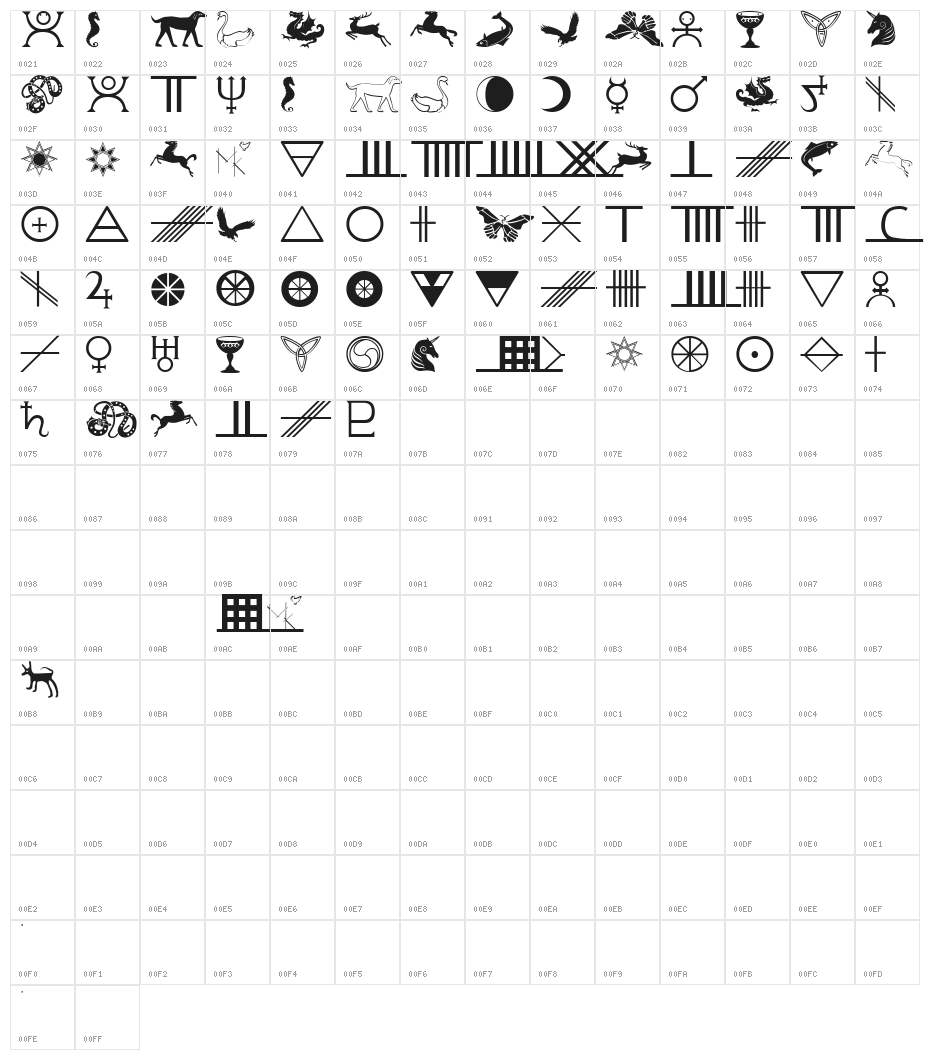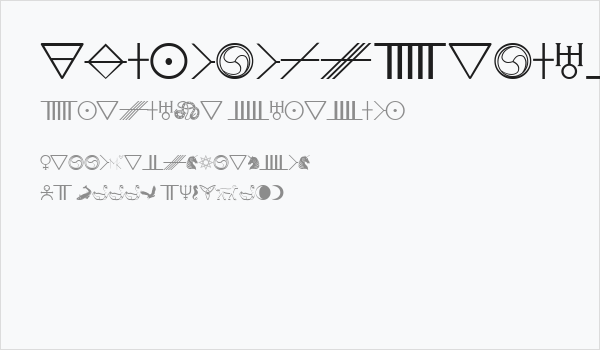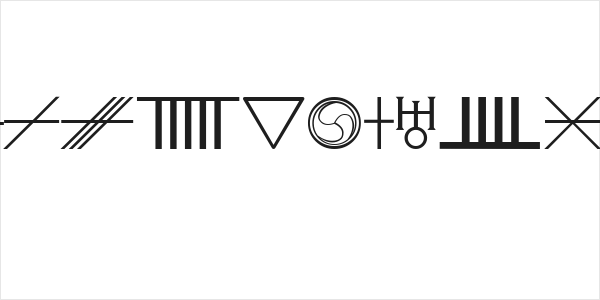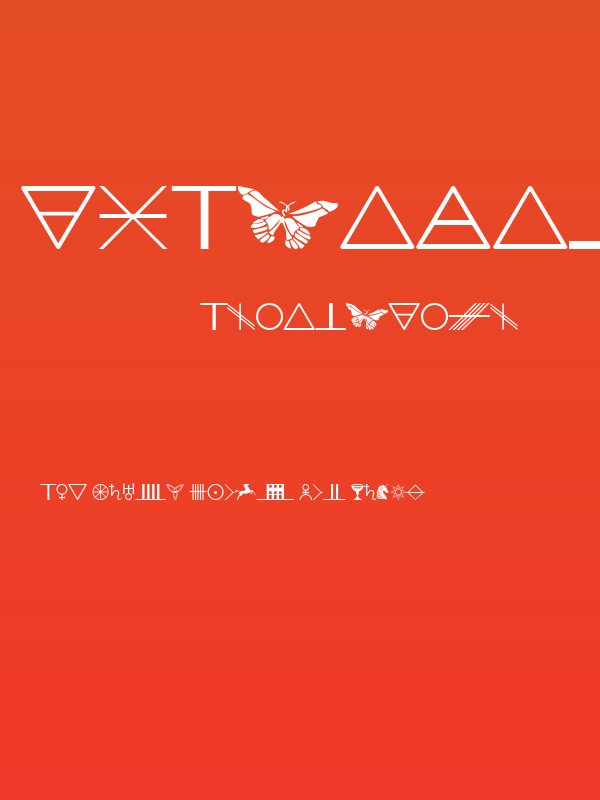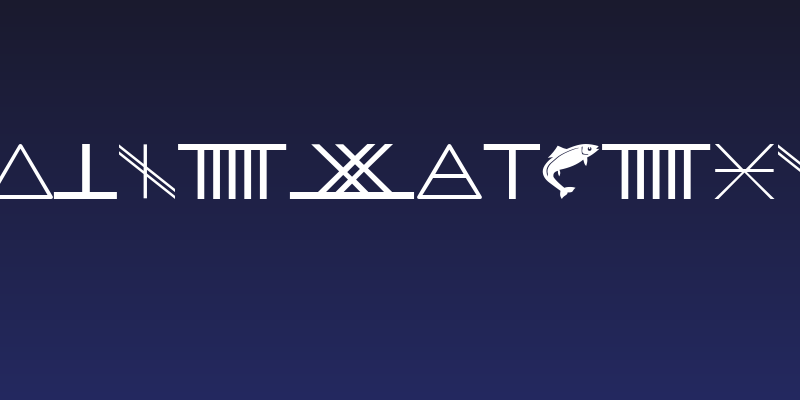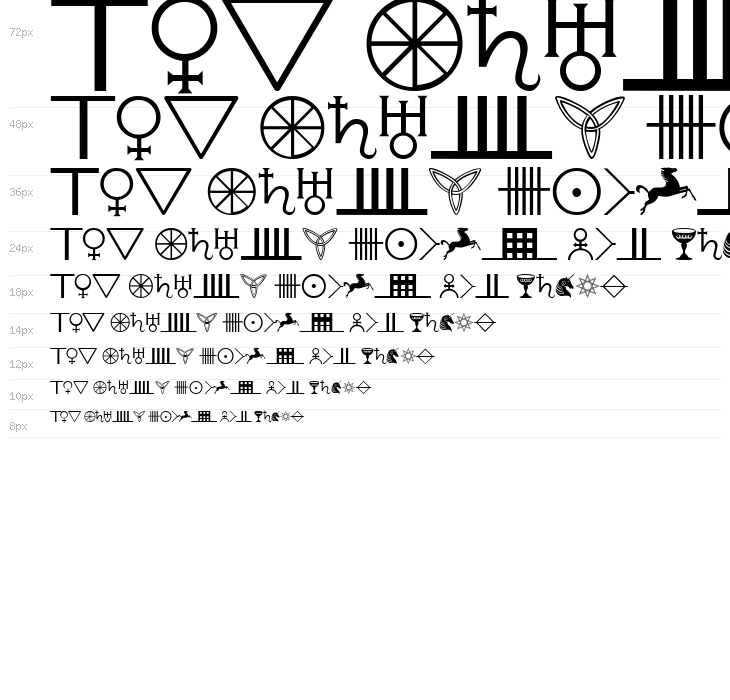
AstrologyCelticSymbols Font
AstrologyCelticSymbols Description
A decorative symbol font combining Celtic Ogham runes, astrological glyphs, mythological animals, and esoteric symbols. The glyphs are highly pictorial, featuring both line-based and filled silhouettes, with a mix of geometric and organic forms. The style is eclectic, merging ancient and mystical motifs with clear, bold outlines.
| Overall Style | Decorative, Mystical, Eclectic |
| Use Case | Logos, Posters, Book covers, Themed invitations, Educational charts |
| Proposed Projects | Tarot cards, fantasy book covers, mystical branding, game design, educational materials on mythology or astrology. |